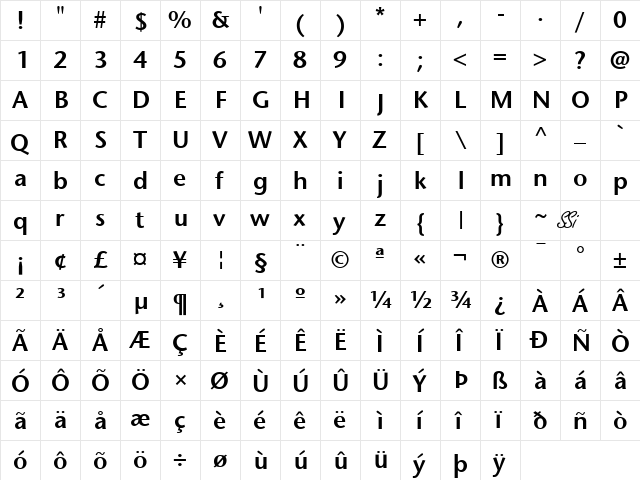
Mesouran Sans SSi Semi Bold
Design Context for Mesouran Sans SSi Typeface
Mesouran Sans SSi takes a measured approach to typography — its balanced proportions and neutral character make it a reliable workhorse for both digital and print work. The heavy weight commands attention and anchors typographic hierarchies.